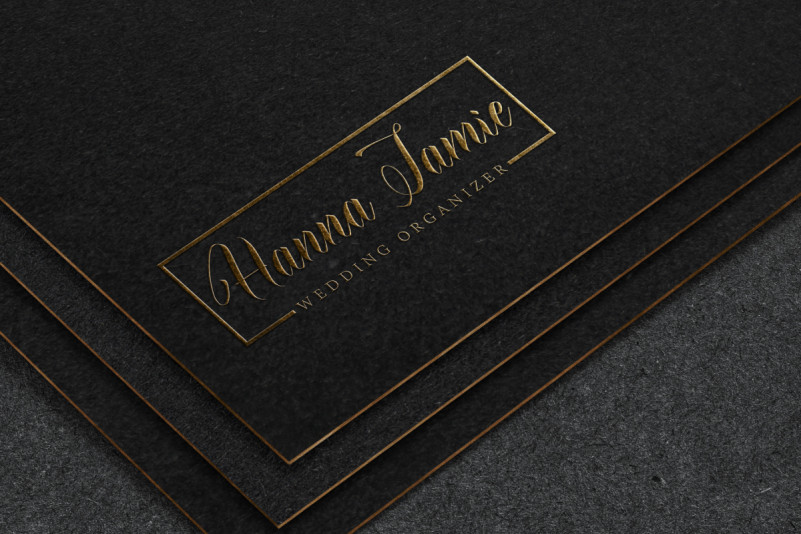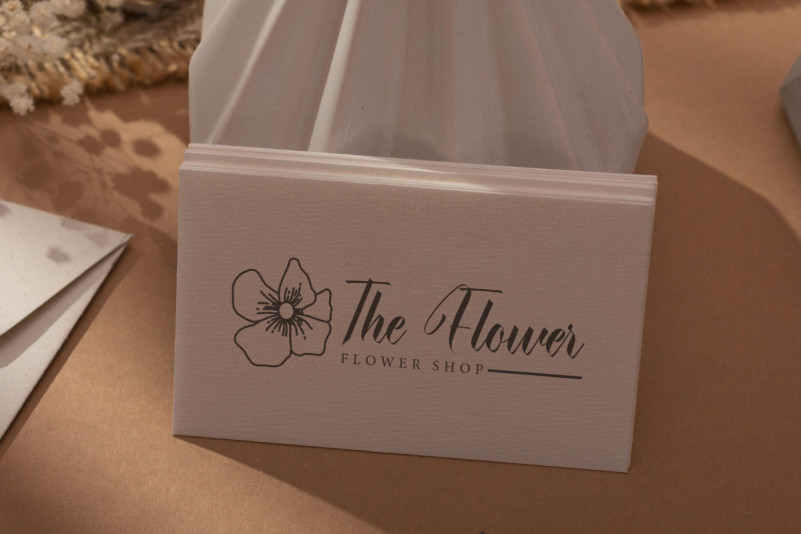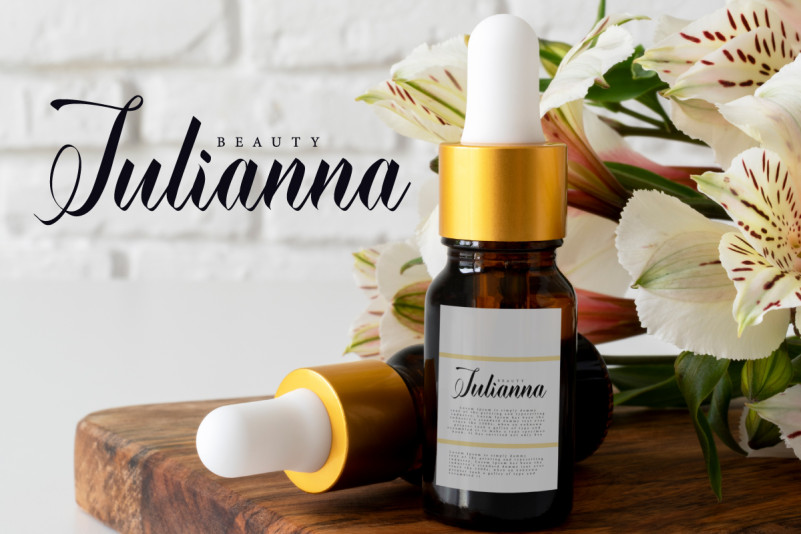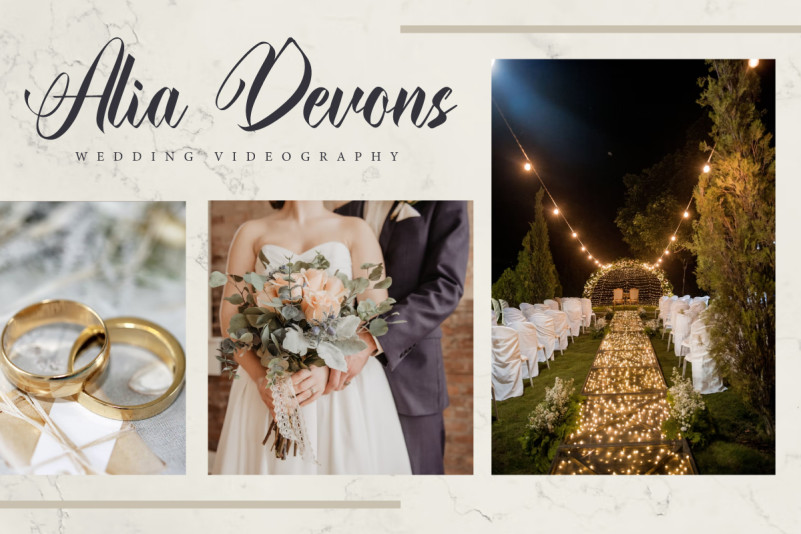
Laenoura Script Font
Laenoura Script Font is a beautiful script font with a classic vibes, exclusively created by EdricStudio. This font is crafted with perfection and easy to read making it suitable for any industry, such as beauty product, boutique, event organizer, fashion, flower shop, handicraft, photography, restaurant, and anything that requires a stunning look.
Laenoura Script Font comes with a full set of Uppercase and Lowercase Basic Characters, Number, a large range of Punctuation and Symbol. It has a stunning characters set, perfectly managed with well spaced and kerning. Laenoura Script Font will be great for any projects (with extended license) including : apps, brand logo, catalog, header, invitation, label, product packaging, stationery, website, etc.